Special Font Generator
"Special" is another broad ask like "cool" or "different." This page leans toward the boxed and sparkle-decorated styles specifically, since those read as more occasion-worthy than a plain letter swap.
Bubble Filled gives a bold, enclosed look; Cute Sparkle and Boxed Dark add extra decoration for something that reads as a step up from everyday text.
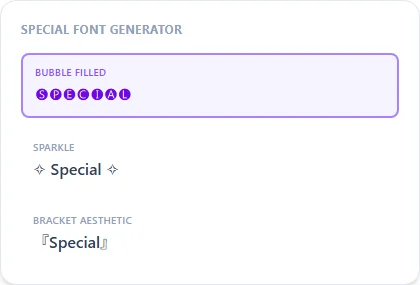
Why 'special' leans toward boxed and decorated styles
Vague vibe requests like 'special,' 'cool,' or 'different' don't map to one exact look, so each page on this site curates a different slice of the full style library based on what that word tends to imply. 'Special' skews toward styles with visible decoration: an enclosed border, a sparkle accent. That framing reads as more occasion-worthy than a plain letter-weight change like bold or italic.
Matching a style to the occasion
Bubble Filled gives a solid, celebratory weight suited to an announcement. Boxed Dark reads a little more formal, useful for a milestone post. Cute Sparkle layers lightly on top of either for extra polish without overwhelming the text.
What makes a font "special" versus just "cool"?
There's no strict technical difference. This page curates toward boxed and decorated styles specifically, since they tend to read as more occasion-worthy than a plain letter-style swap.
Good for an anniversary or celebration post?
Bubble Filled or Boxed Dark paired with Cute Sparkle both read well for a celebratory caption.
Does this work for a birthday or graduation post too?
Yes, Bubble Filled and Cute Sparkle both suit those occasions well, alongside the anniversary and celebration use cases this page is built around.